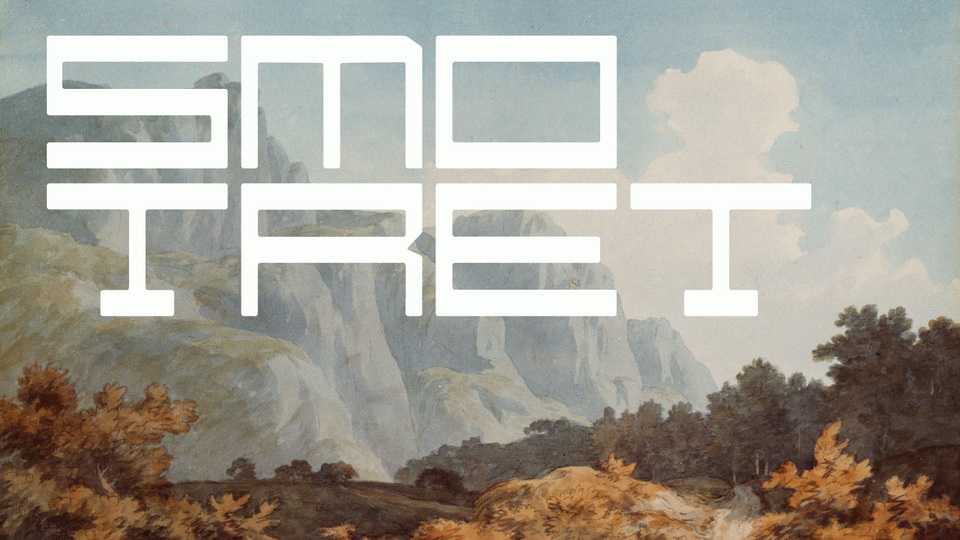
Download Smotret font, a blend of futuristic and oldschool style typeface, inspired by an old Russian clock. Energetic, geometric and bold.
Designer: Konstantinas Ladauskas